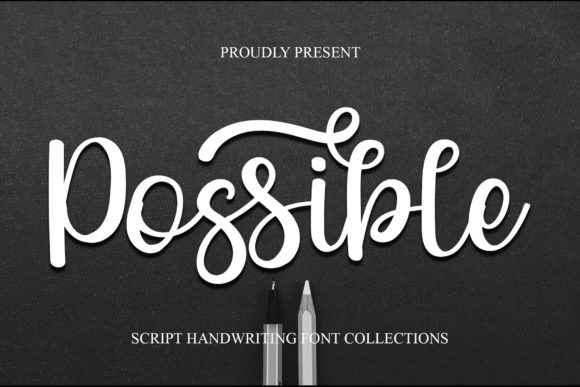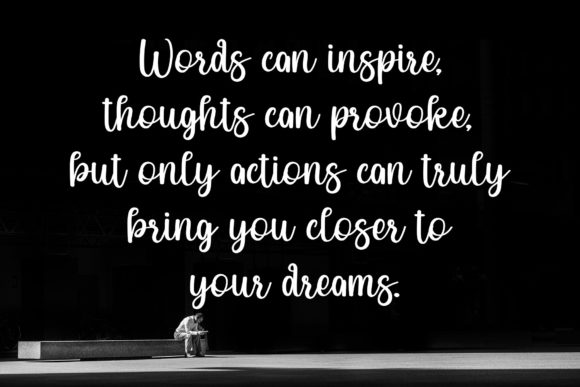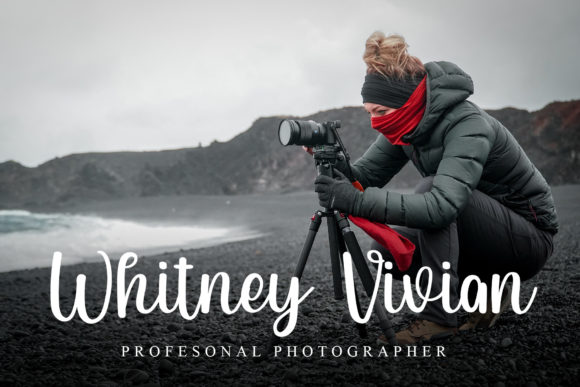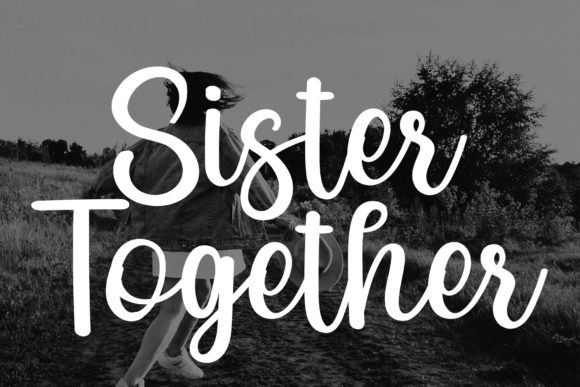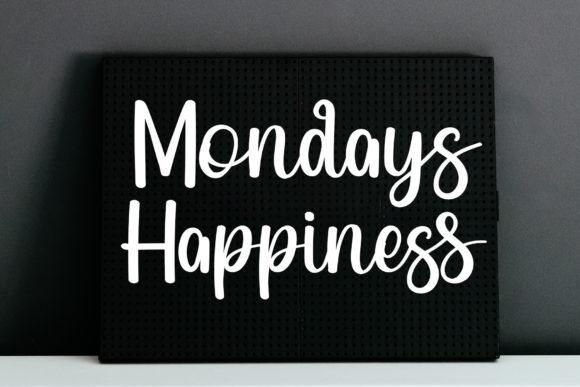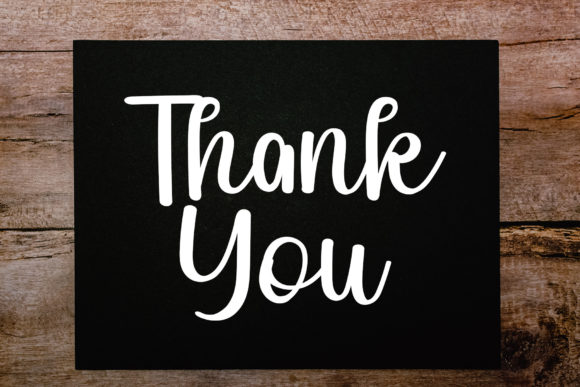
Possible Font
Possible is a sweet and delicate handwritten font designed to evoke a sense of daintiness and joy. With its delicate strokes and joyful demeanor, this font is an ideal choice for projects that require a romantic and personalized touch, such as wedding invitations, cards, and other designs.
The sweet and delicate nature of Possible contributes to its versatility, making it suitable for various creative endeavors. Whether you’re expressing love, gratitude, or other sentiments through cards or invitations, Possible adds a warm and personal touch to your messages.
The handwritten charm of this font makes it particularly well-suited for projects that require authenticity and a romantic aesthetic. Its dainty appearance enhances the overall appeal of wedding invitations, creating an atmosphere of romance and joy for the special occasion.
One outstanding feature of Possible is its PUA encoding, which allows easy access to a variety of amazing glyphs and ligatures. This functionality enhances the font’s creative potential, providing designers with the tools to customize their projects effortlessly.
In summary, Possible is more than just a font; it’s a sweet and delicate design asset that brings a romantic and personalized touch to your creative projects. With PUA encoding, designers can seamlessly access its amazing glyphs and ligatures, making it a user-friendly option for creating visually enchanting and heartfelt designs. Whether applied to wedding invitations or other design needs, Possible adds a delightful and romantic flair to every project it graces.